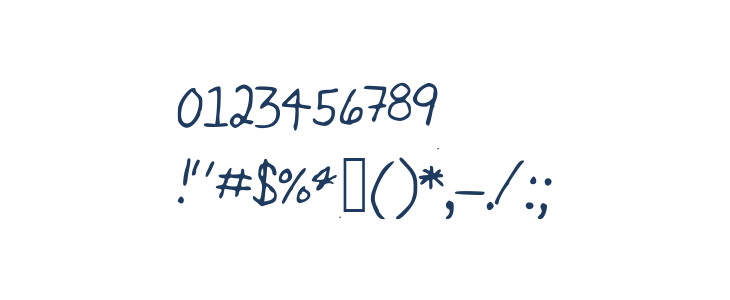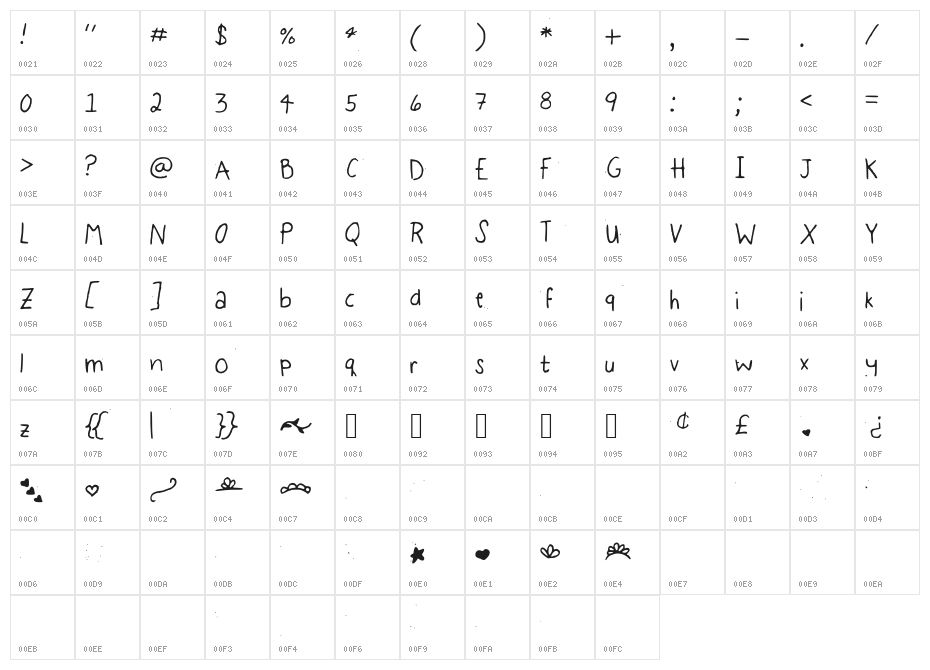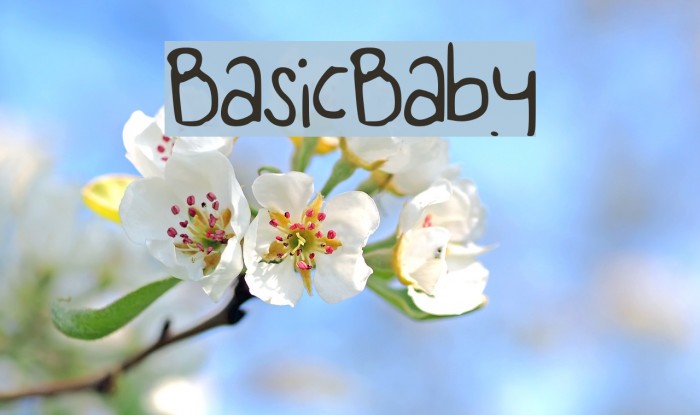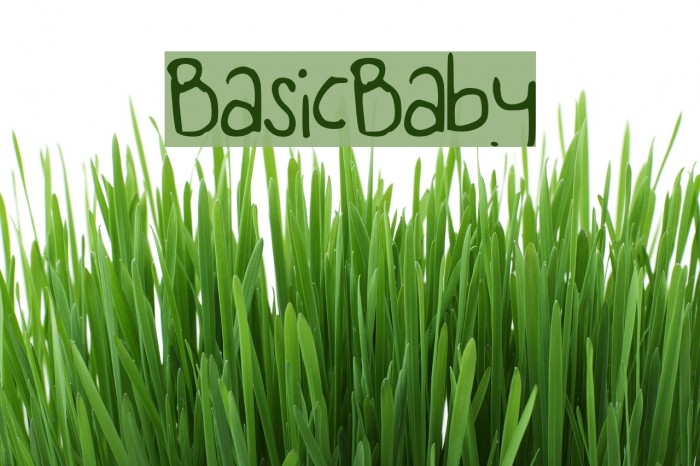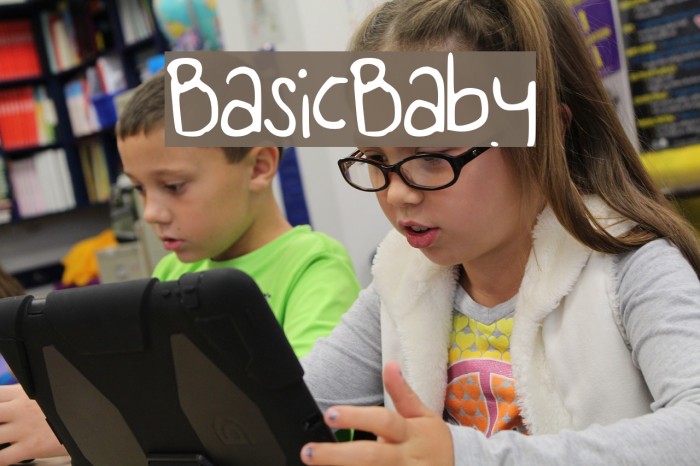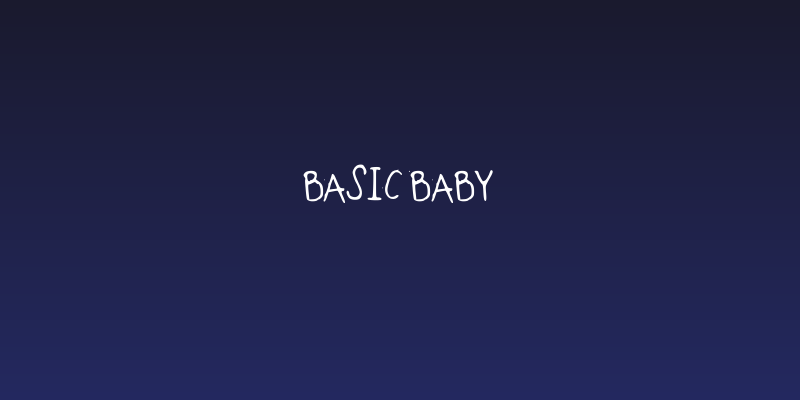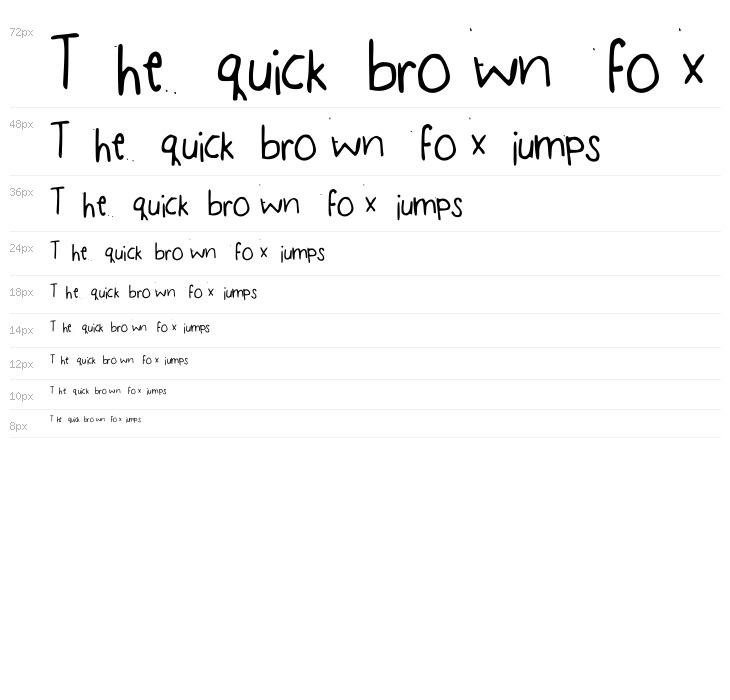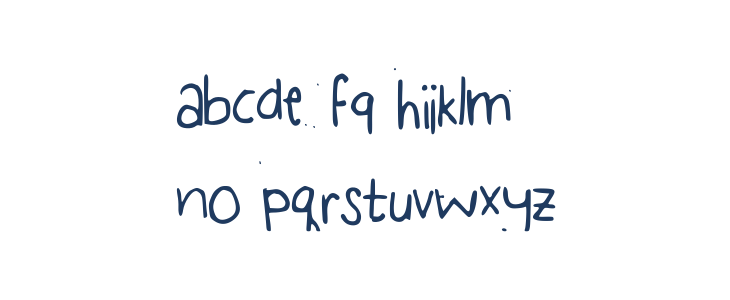
BasicBaby Font
BasicBaby Description
This playful and whimsical font features a handwritten style with a casual and friendly appearance. The letters are slightly irregular, adding to its charm and informal feel. The strokes are consistent in width, giving it a uniform look despite its playful nature. The uppercase and lowercase letters are well-balanced, with a slight tilt that enhances its handwritten aesthetic. The numerals and special characters maintain the same playful style, making it versatile for various uses. Its simplicity and charm make it suitable for projects that require a personal touch.
Overall StyleCasual, Playful
Use CaseHeadlines, Logos, Informal Text
Proposed ProjectsIdeal for children's books, greeting cards, playful branding, and casual invitations.